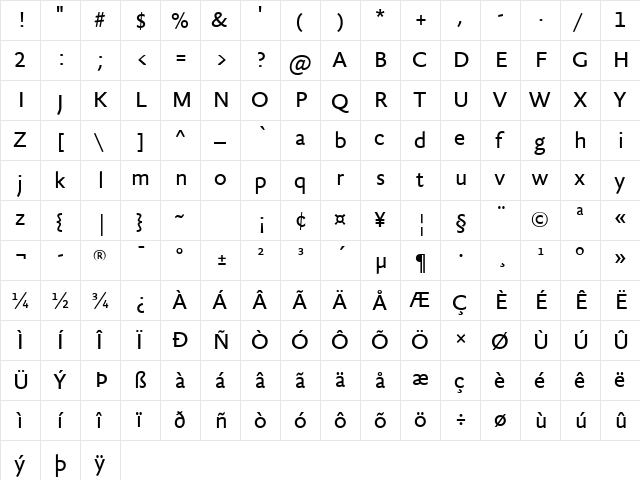
Vrgrgzwprwyjjcqrcfjqixiitlt Regular
| Foundry | FSI |
| Designer | Xavier Dupr? |
Design Context for Vrgrgzwprwyjjcqrcfjqixiitlt Typeface
Vrgrgzwprwyjjcqrcfjqixiitlt offers clean, dependable letterforms without strong stylistic allegiance, making it a practical choice for designers who need flexibility.